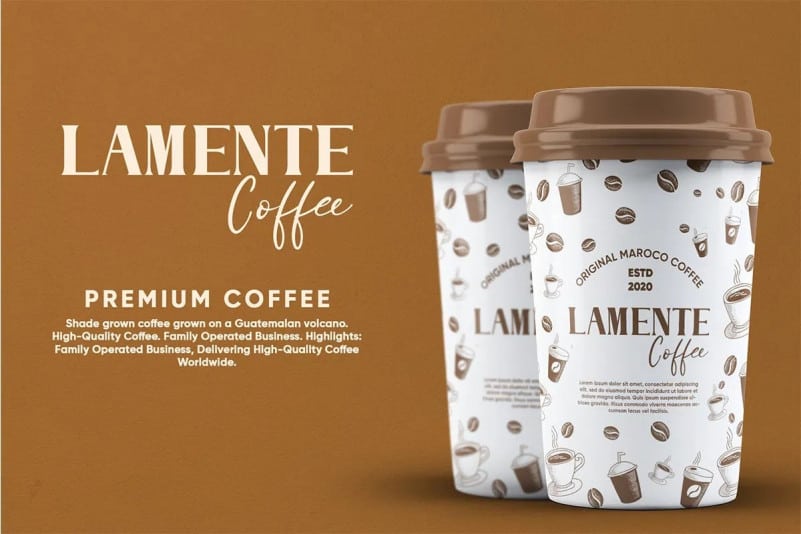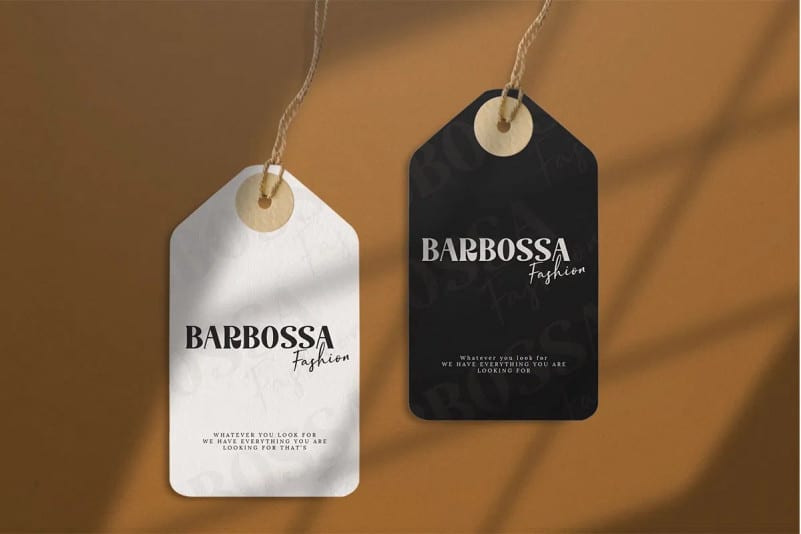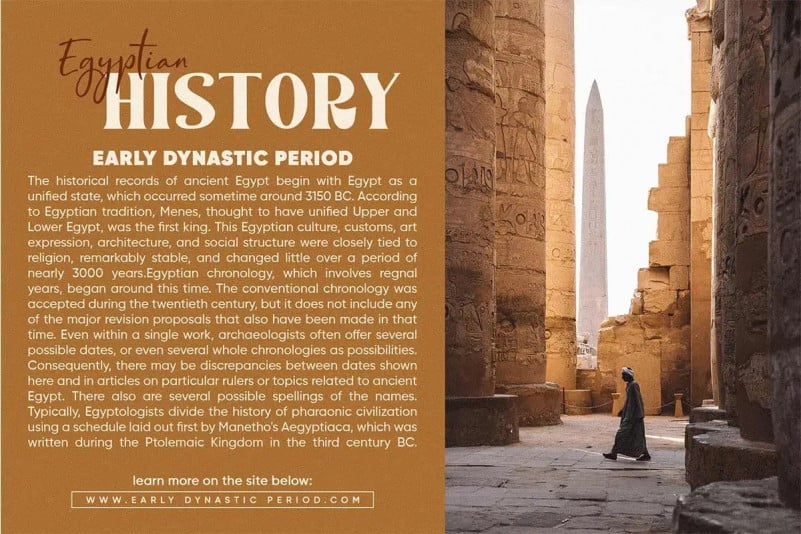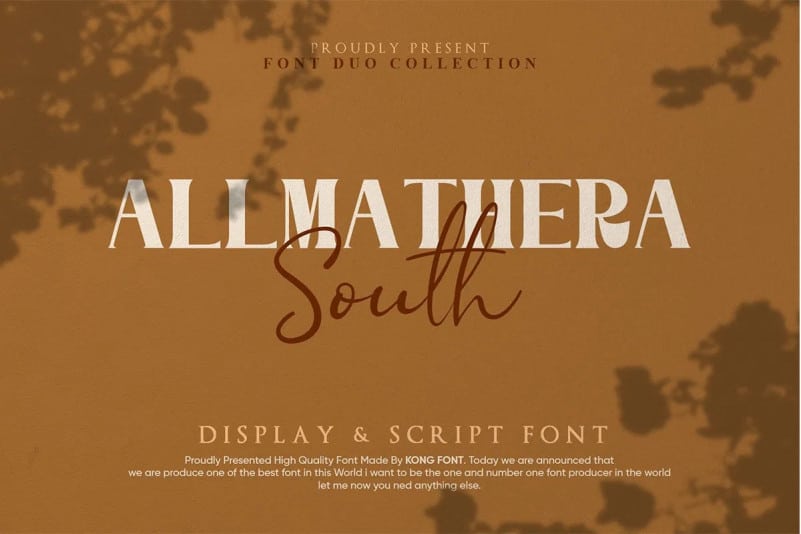
Allmathera South Font Duo is a spectacular duo font (serif and script). Incredibly versatile, this font fits a wide pool of designs, elevating them to the highest levels. Add this font to your favorite creative ideas and notice how it makes them come alive!
Allmathera South Font Duo is PUA encoded which means you can access all of the beautiful glyphs and swashes with ease! It also features a wealth of special features including alternate glyphs and ligatures.